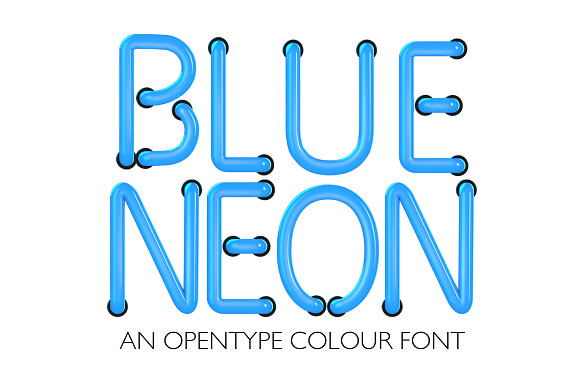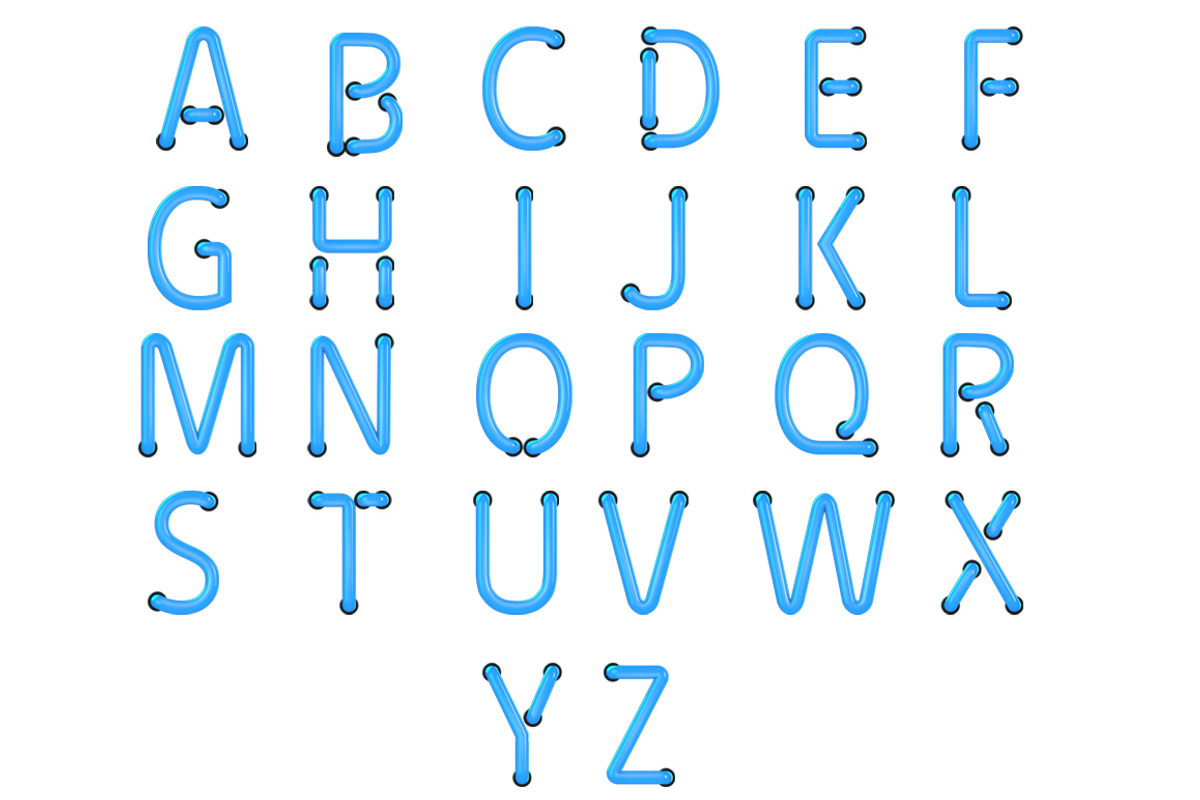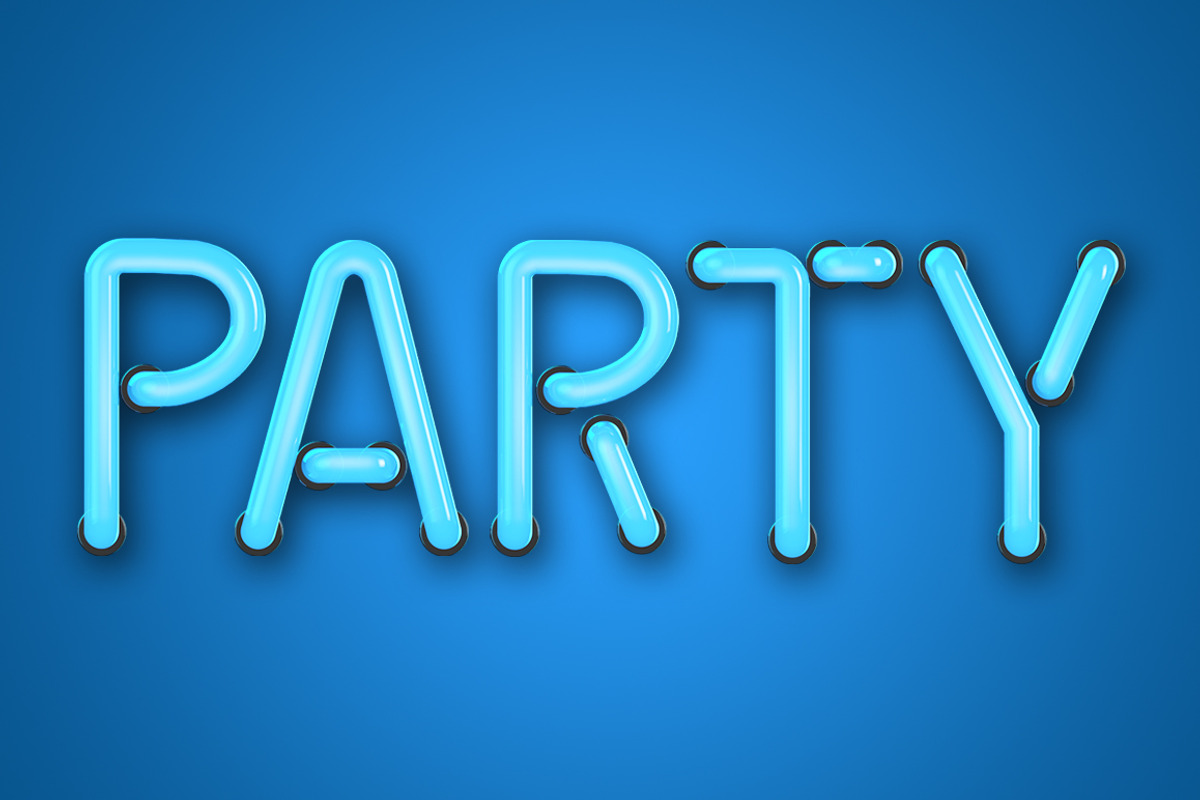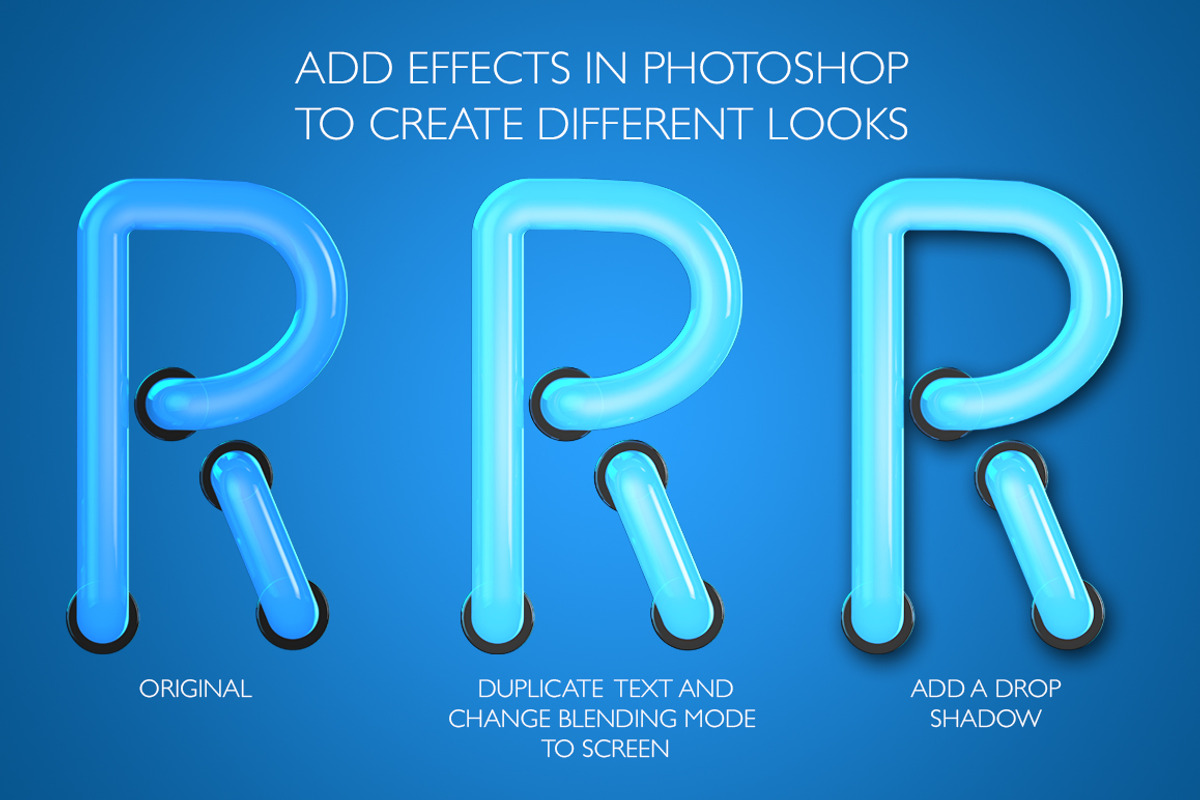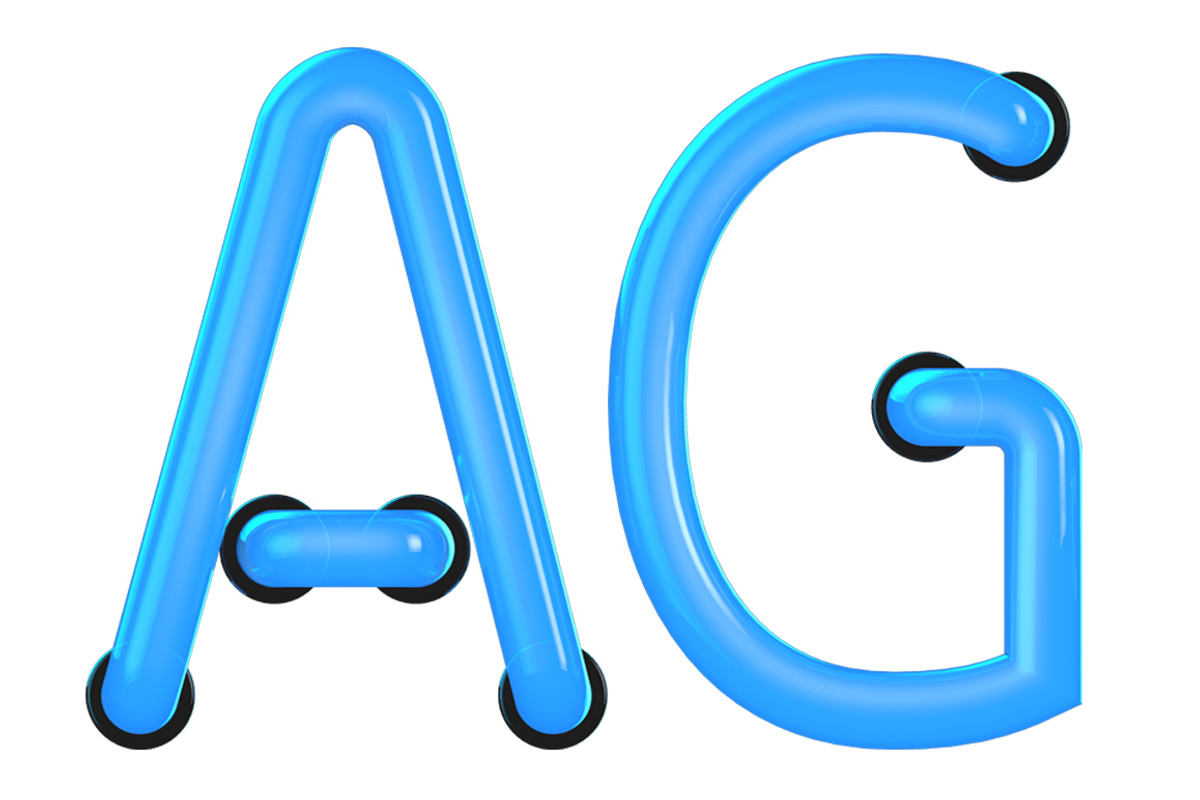
BLUE NEON - Colour font
BLUE NEON is a colour OTF font. Each letter has been created in 3D then turned into a simple to use font. Just download and start typing in beautiful blue neon lettering. Each letter is approximately 1200 pixels in height.